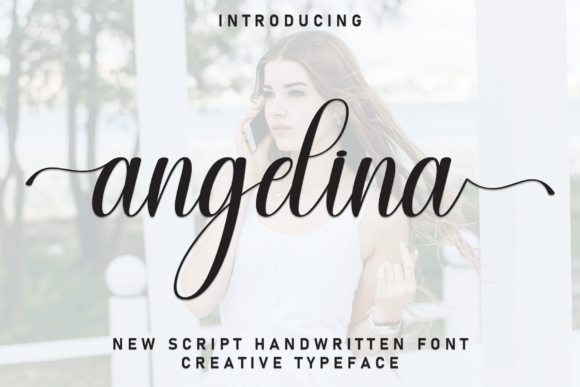
Discover the Delightful Charm of Angelina Font
Have you ever been in the middle of a design project, pouring your heart and soul into it, only to get stuck on one thing: finding the perfect font? I recall a particularly frustrating experience while working on a wedding invitation project. My client wanted something that exuded warmth, joy, and a touch of whimsy, but I just couldn’t seem to find the right fit. That was until I stumbled upon Angelina Font, a handwritten display font that has since become my go-to for adding a dash of personality to any design.
A Personal Review of Angelina Font
- ✨ Warm-hearted aesthetics: This font embodies a delightful charm that instantly adds a touch of warmth to any design.
- ✅ Vibrant and fun characteristics: Angelina Font is perfect for designs that require a playful and lively feel, such as wedding invitations, greeting cards, and more.
- 💫 Captivating allure: This font has a way of making your designs stand out, adding a facet of joy and spontaneity to your way of communicating unique sentiments.
While Angelina Font is undoubtedly a stunning addition to any design, there are a few minor quirks to be aware of:
- 🤔 Limited use in formal designs: Due to its playful nature, Angelina Font may not be the best fit for more formal designs, such as corporate branding or official documents.
- ⚠️ Glyph limitations: While the font comes with a range of glyphs and stylistic alternates, it may not have every special character or symbol you need.
The Backstory Behind Angelina Font
According to its creators, Angelina Font was inspired by the classic handwritten fonts of the past, with a modern twist. The goal was to create a font that exuded warmth, joy, and a touch of whimsy, perfect for designs that require a personal touch.
| What type of designs is Angelina Font best suited for? | Angelina Font is perfect for designs that require a touch of whimsy and playfulness, such as wedding invitations, greeting cards, and other creative projects. |